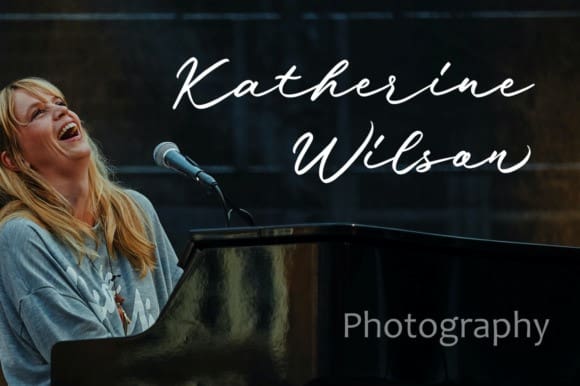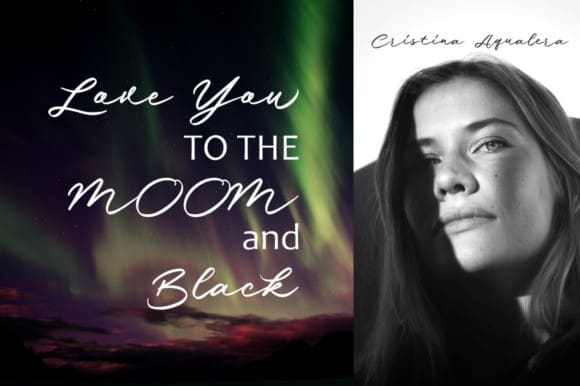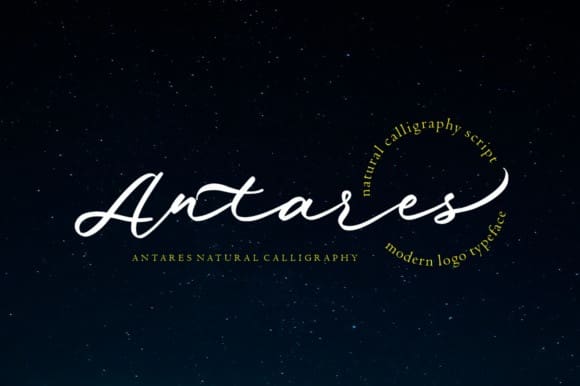
Antares Script Font
Antares Script Font, is an enchanting handwritten font. This versatile script font has a wide spectrum of applications ranging from greeting cards to headlines. Antares is PUA encoded which means you can access all of the glyphs and swashes with ease!